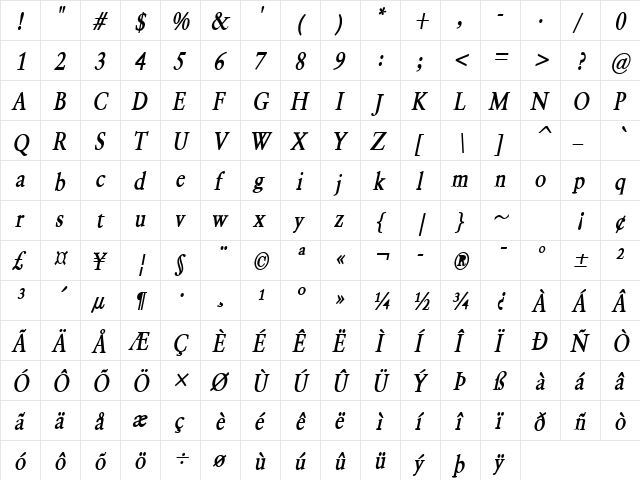
Garrick-Condensed Bold Italic Font Preview
Design Context for Garrick-Condensed Typeface
Garrick-Condensed is a composed and adaptable typeface that performs quietly and consistently across a wide range of design contexts. Its italic angle brings a sense of urgency and motion to the letterforms. Its bold stroke weight gives it real presence on the page. Its narrow stance lets it pack a punch even in space-constrained designs.
Pro Tip: Use Garrick-Condensed for emphasis, pull quotes, and subheadings where its slanted energy can add rhythm to the layout.